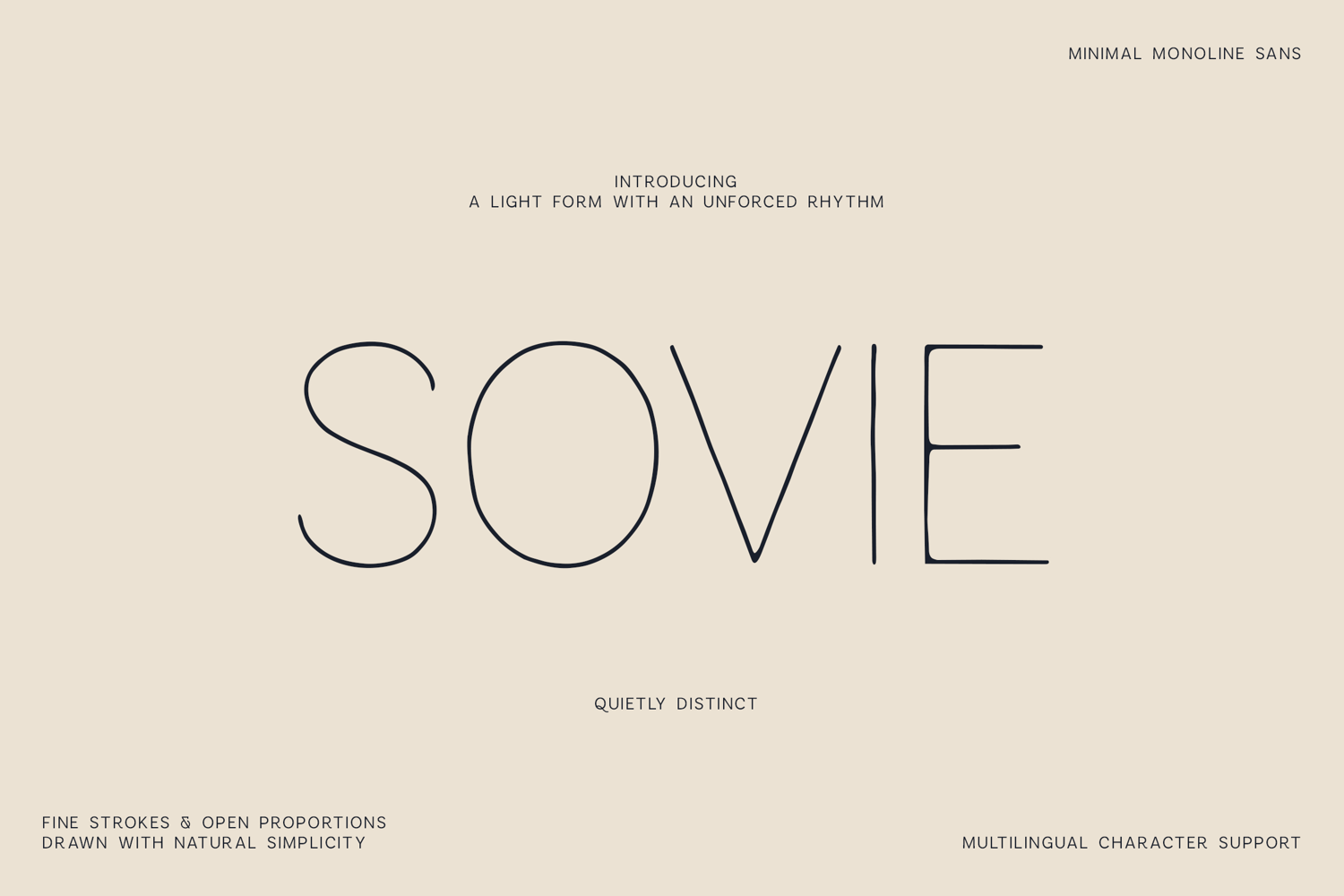
Sovie Thin Modern Font for Logos and Branding
Create clean, sophisticated typography with Sovie, a thin modern font designed for logos, branding and minimal graphic design.
Sovie combines delicate line weight with open letterforms and relaxed proportions, creating a light visual style that feels modern without being overly geometric.
The thin construction works beautifully for elegant names, simple wordmarks and spacious layouts where subtle typography is more effective than heavy display lettering.
This thin modern font is ideal for:
- Logo design
- Brand identities
- Product packaging
- Boutique graphics
- Business cards
- Editorial titles
- Social media
- Website graphics
- Fashion branding
- Minimal poster design
- Uppercase alphabet
- Lowercase alphabet
- Numbers
- Punctuation and symbols
- Extended accented characters
- Multilingual Latin support
Sovie's clean shapes make it easy to pair with heavier serif, sans serif or handwritten fonts when building contrast within a larger design system.
Use this thin modern font when you need typography that feels light, polished and intentionally simple.